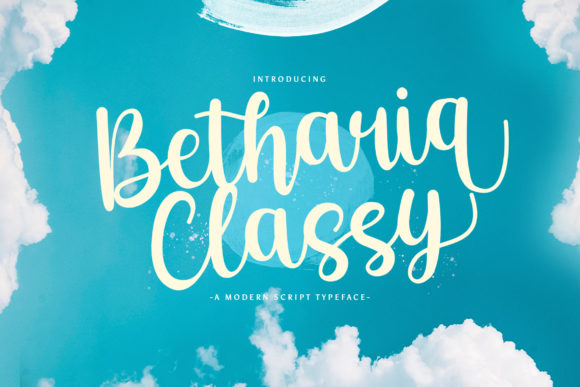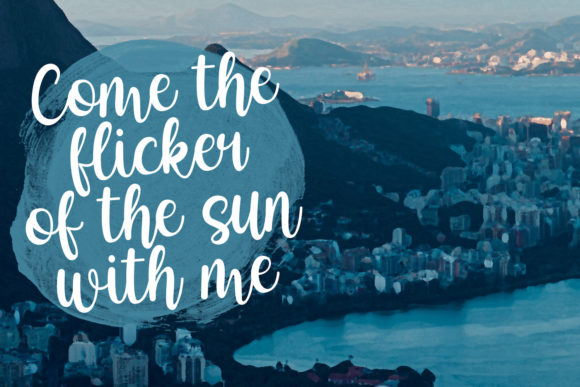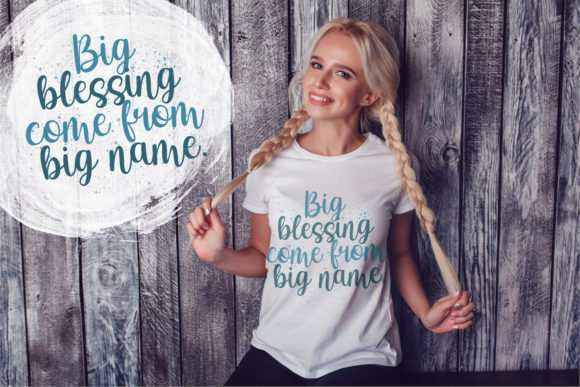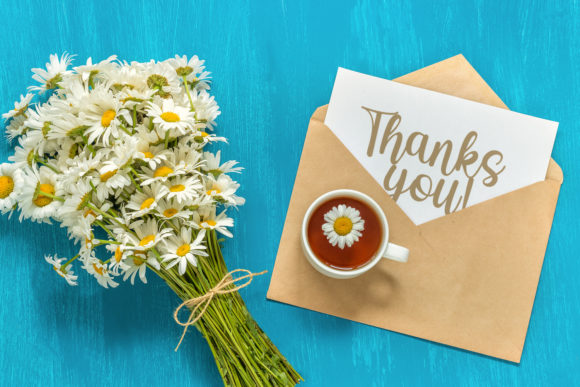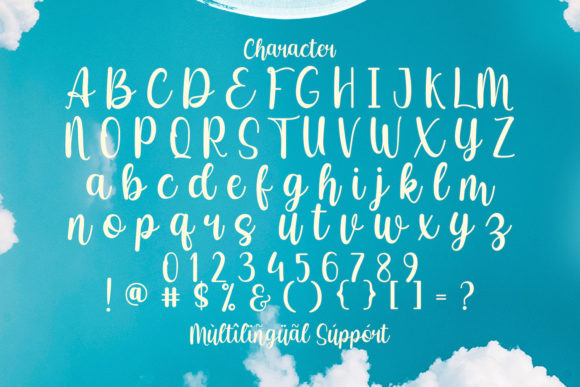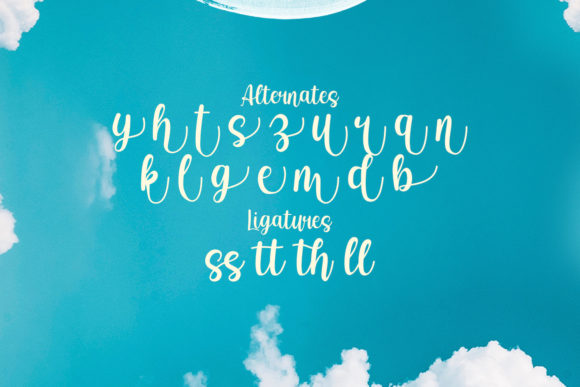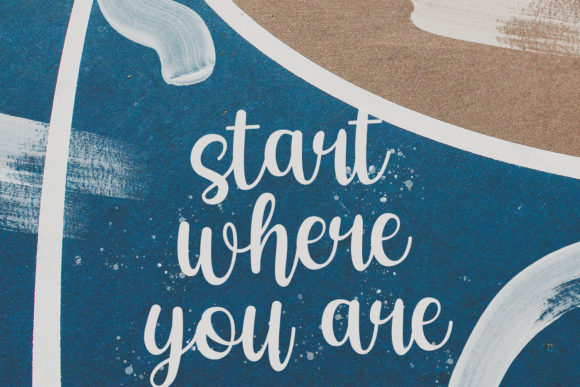
About Betharia Classy Font
Betharia Classy is a modern script font that is bold and complimented by its delicate swashes. It will elevate a wide range of design projects to the highest level, be it branding, headings, wedding designs, invitations, signatures, logos, labels, and much more!